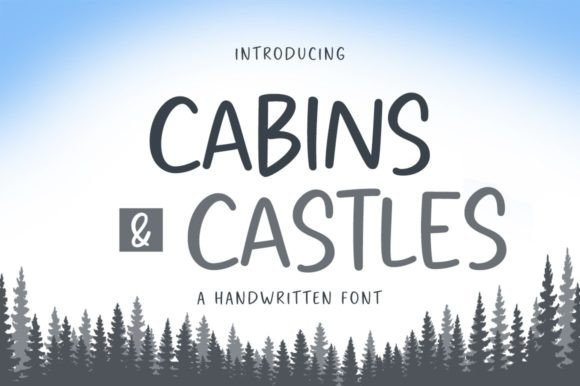
Journey into the realm of enchanted forests and majestic castles with Cabins and Castles Font, a captivating script font family that will ignite your imagination and bring your creative visions to life. Step into a world of rustic charm and timeless elegance, where every letter dances with grace and personality.
Crafted with meticulous attention to detail, Cabins and Castles Font is the perfect companion for small displays, adding a touch of whimsy and sophistication to your designs. Its delicate strokes and simple letterforms create an authentic handwritten look that will resonate with your audience, evoking a sense of nostalgia and wonder.
With Cabins and Castles Font, you can effortlessly transform your words into works of art. Create chalkboard quotes that inspire and uplift, or use it to design teaching materials that capture the hearts and minds of your students. Its versatility knows no bounds, making it the ideal choice for a wide range of projects, from wedding invitations to social media posts.
Immerse yourself in the enchanting world of Cabins and Castles Font and discover the endless possibilities it holds. Let your creativity soar as you craft designs that captivate and enchant your audience. Embrace the magic of this remarkable font family and embark on a journey of artistic expression that will leave a lasting impression.